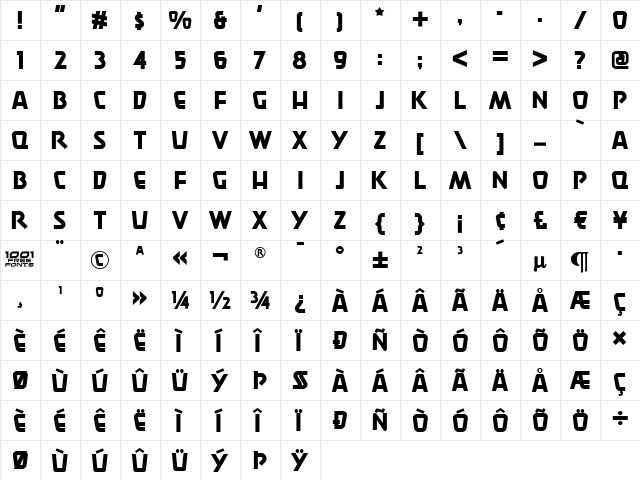
BurgerDoodleNF Regular
Design Context for BurgerDoodleNF Typeface
BurgerDoodleNF is a composed and adaptable typeface that performs quietly and consistently across a wide range of design contexts.